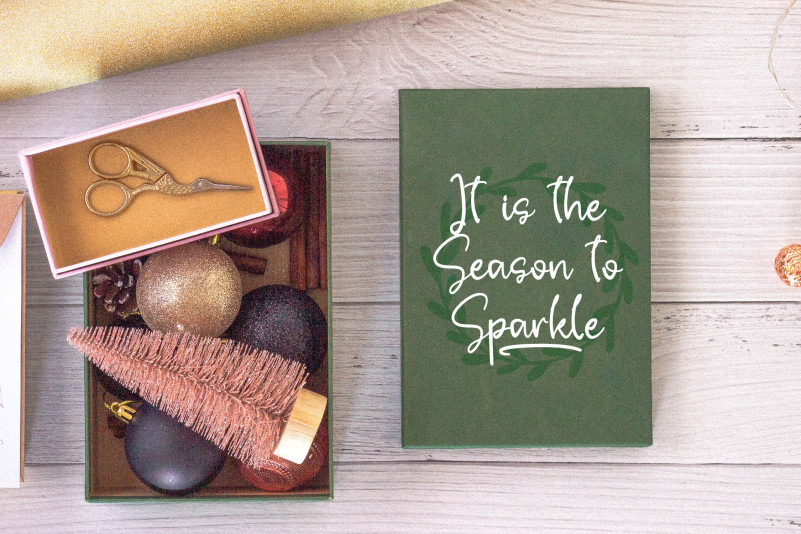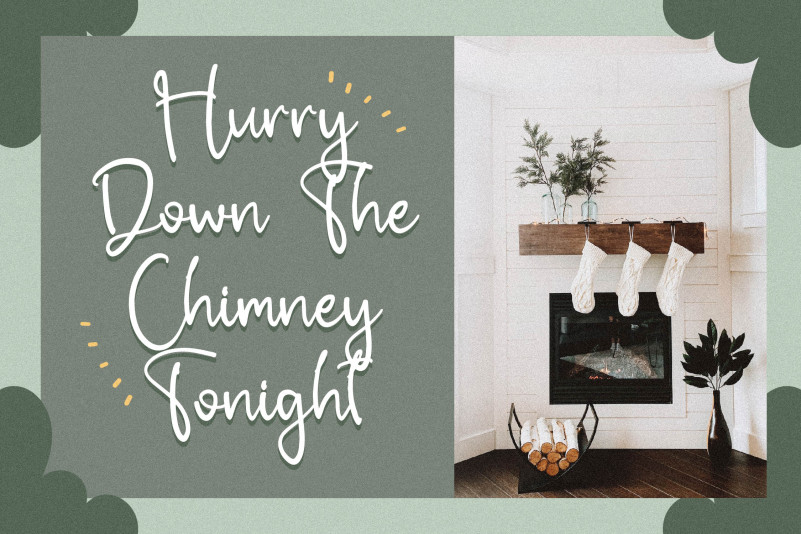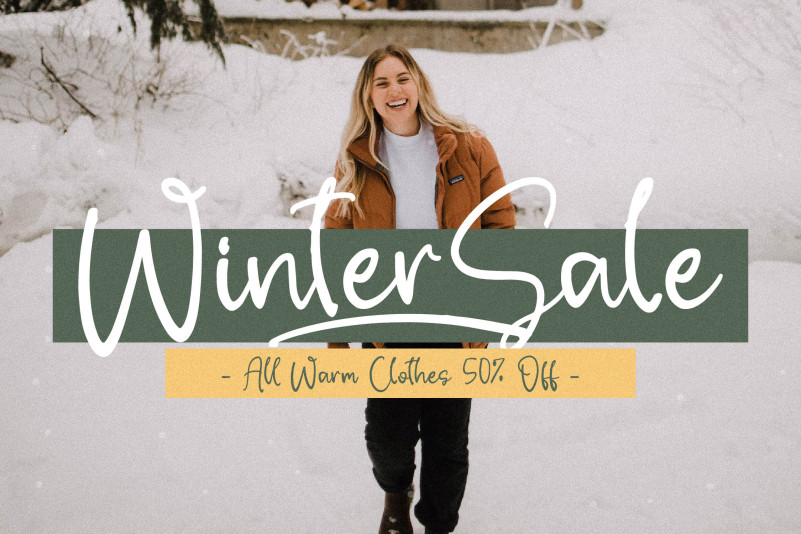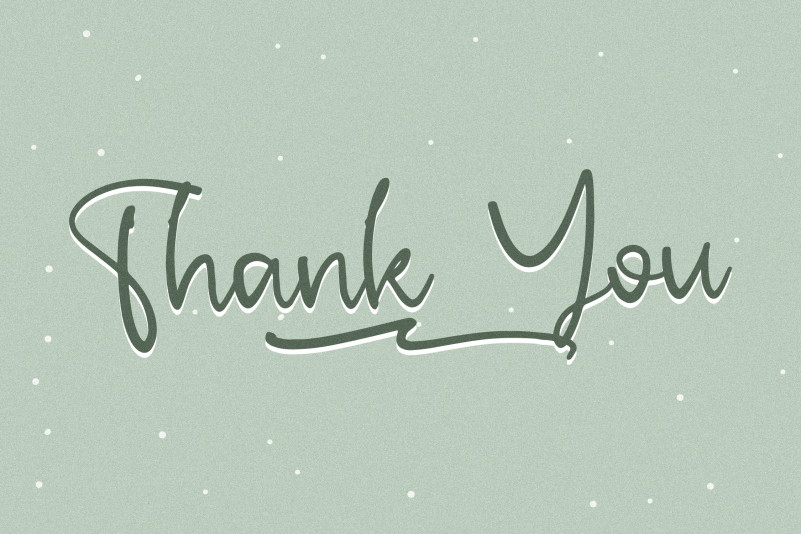
Whitfield Font
Whitfield Script Font is a Handwritten Script Font, suitable for any projects such as: logos, branding projects, homeware designs, product packaging, mugs, quotes, posters, shopping bags, t-shirts, book covers, name card, invitation cards, greeting cards, label, photography, watermark, special events, and all your other lovely projects that need a beautiful script taste.